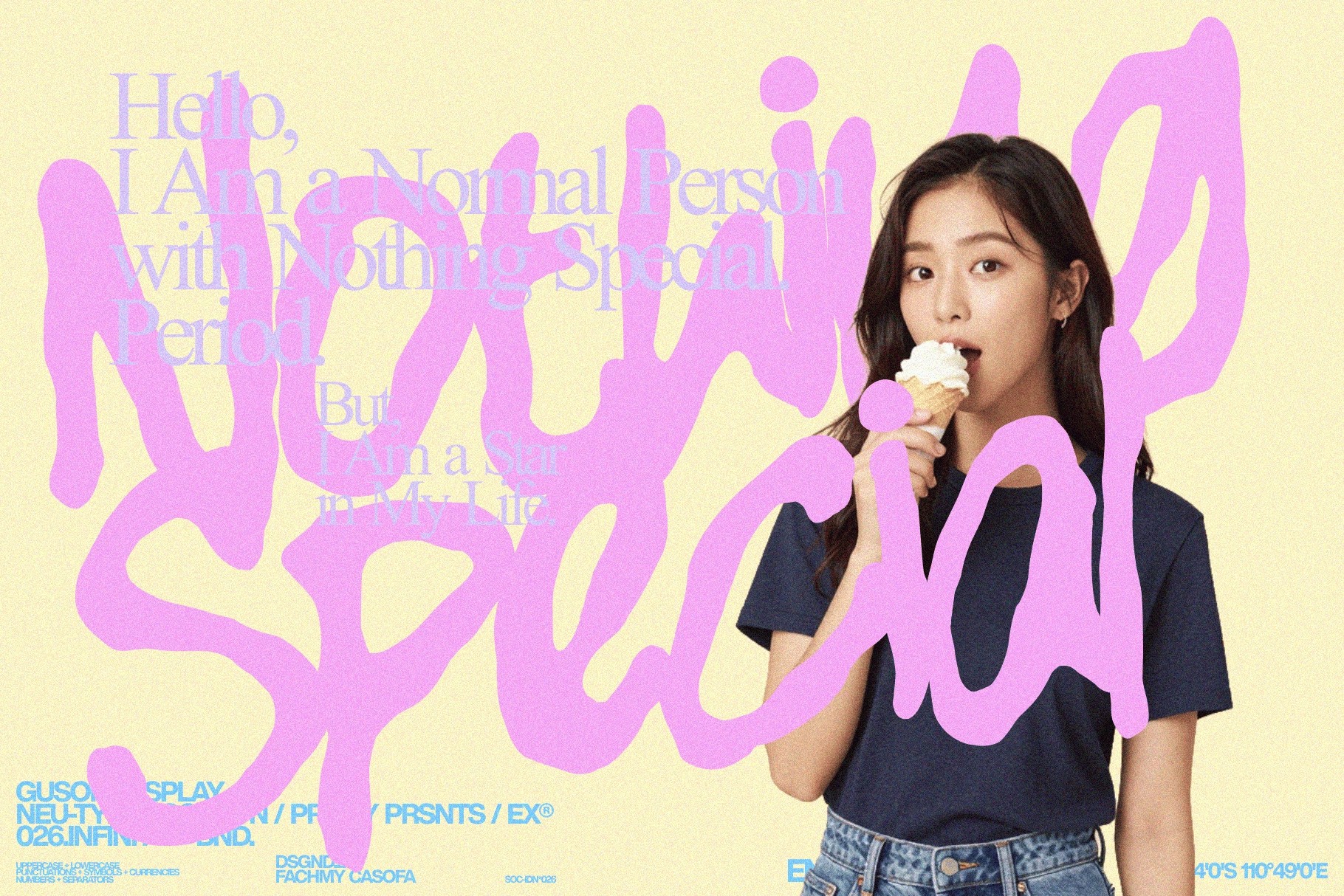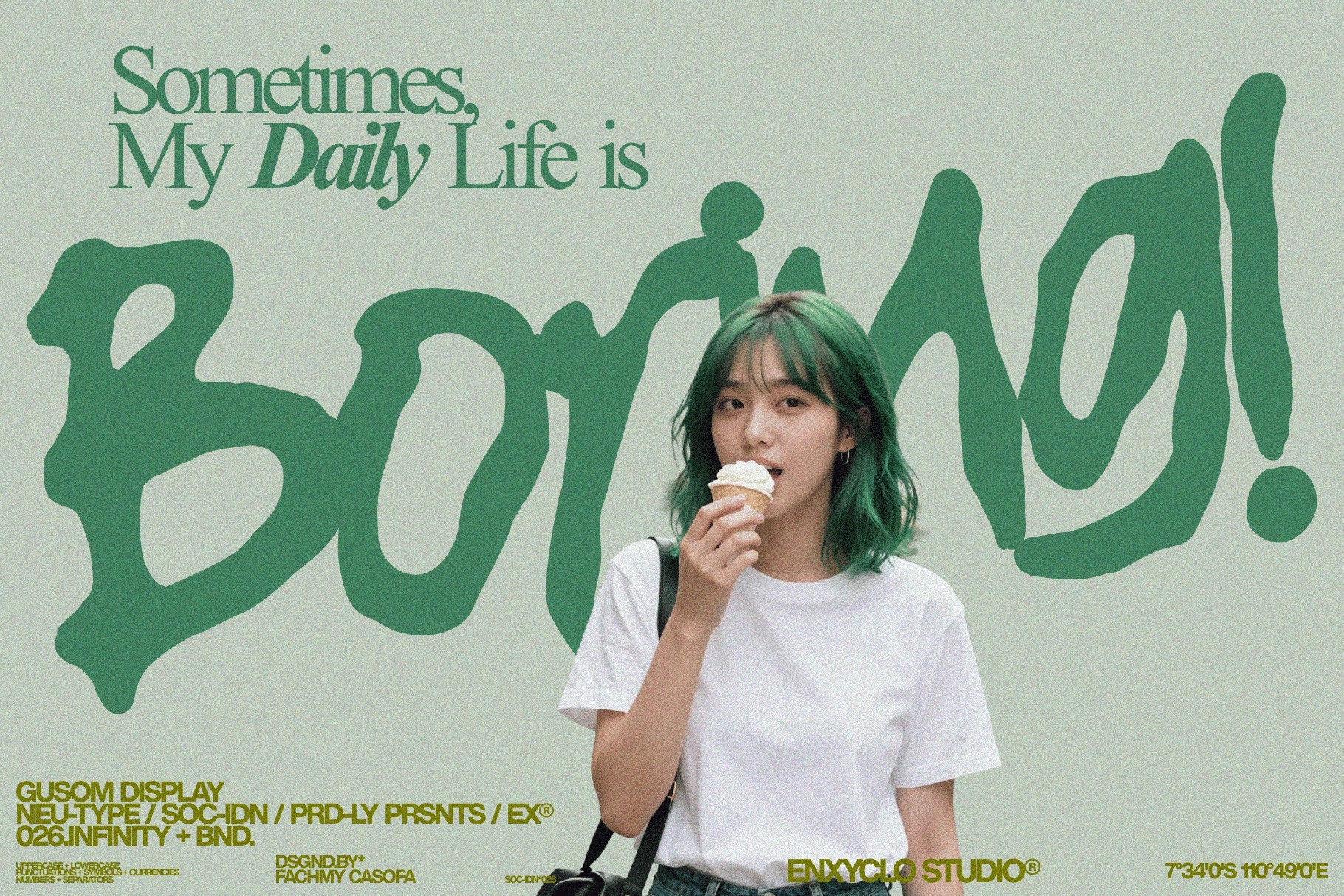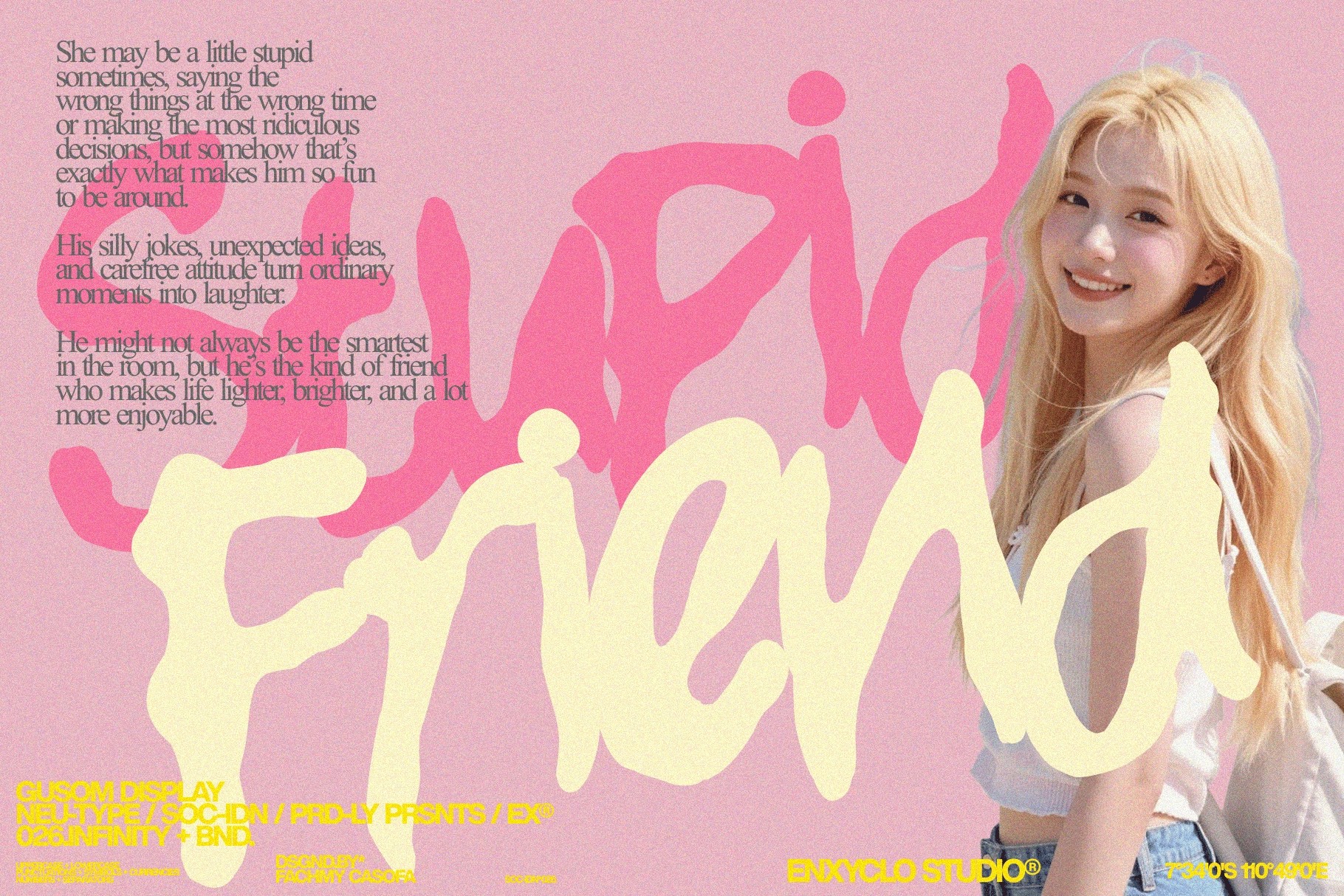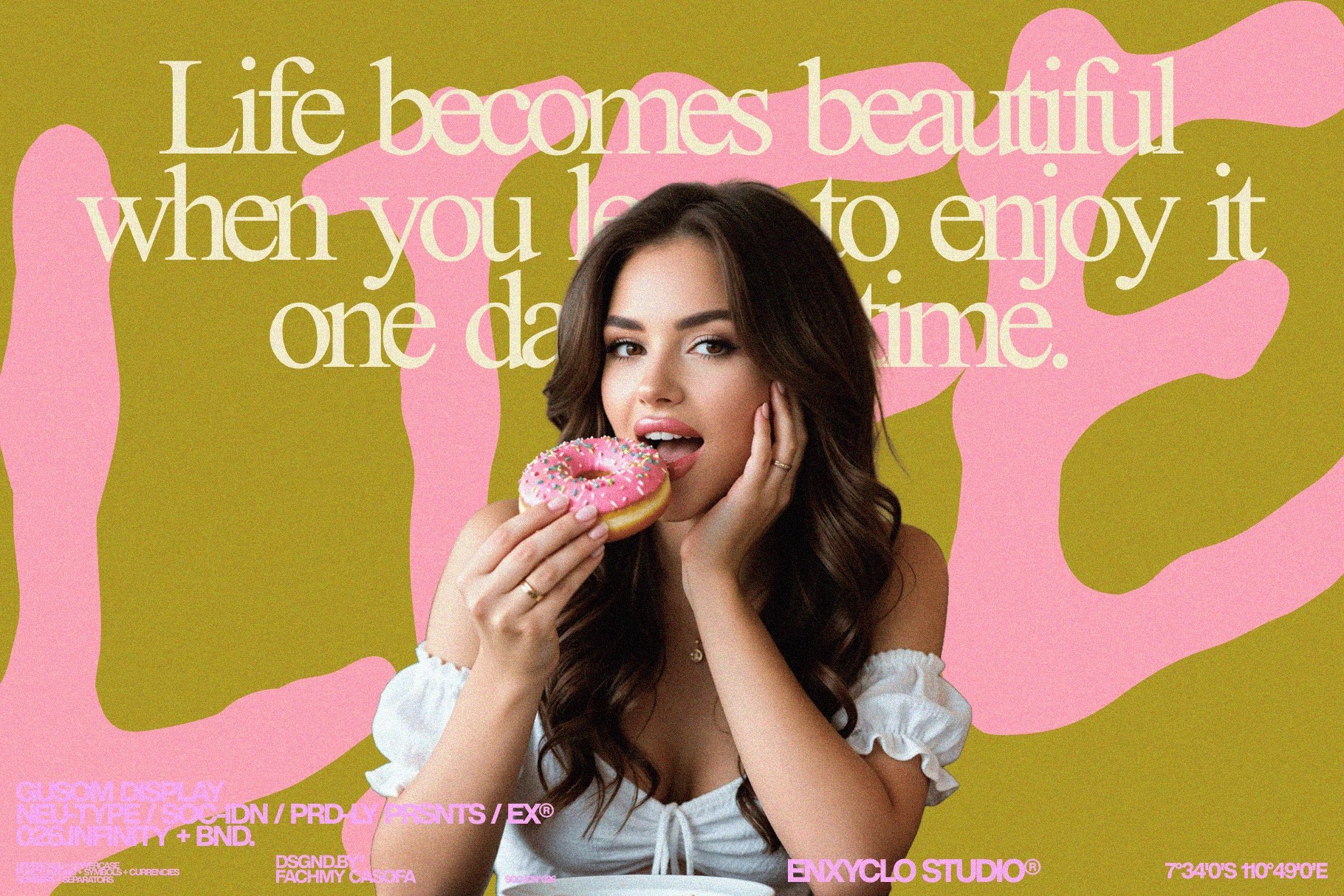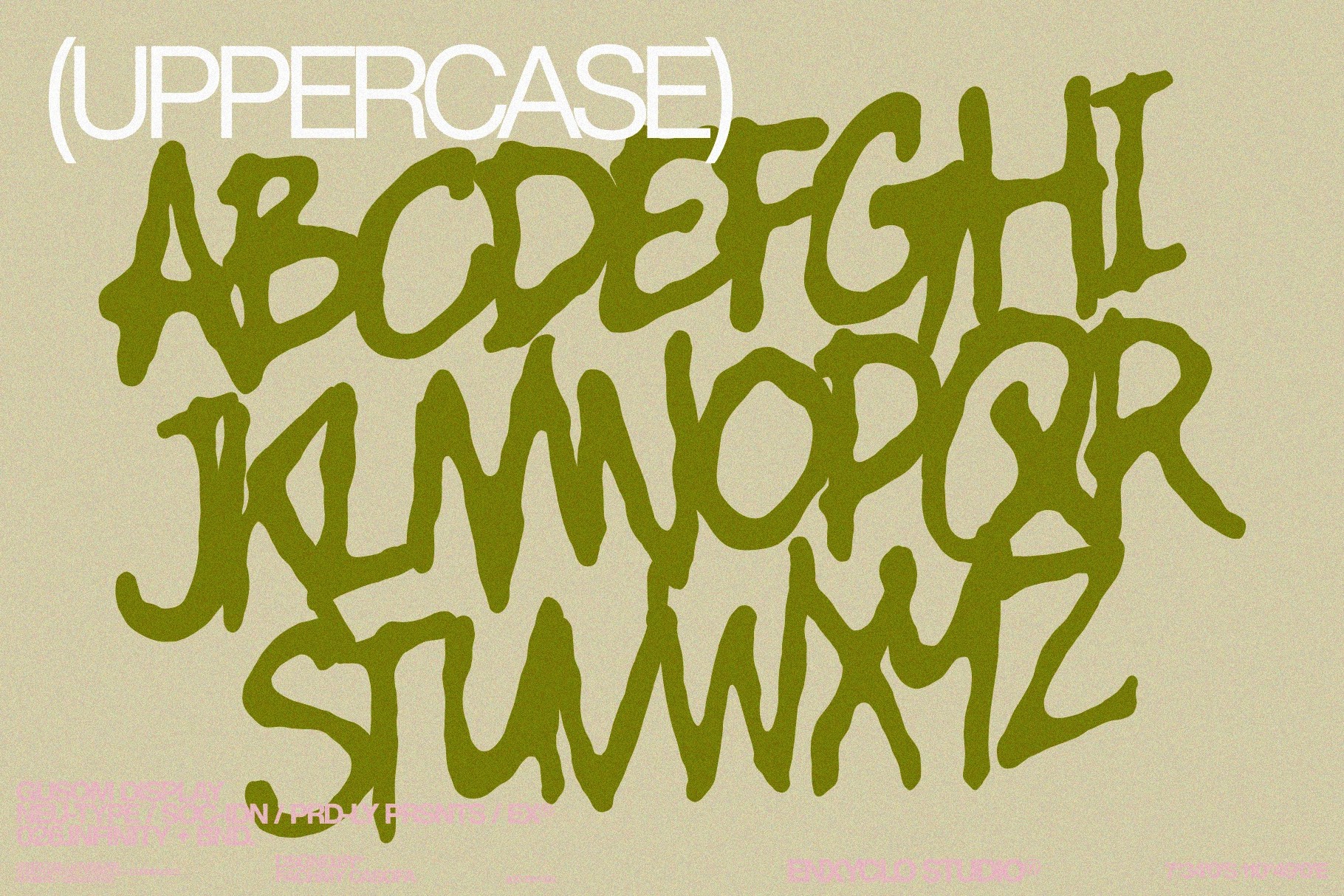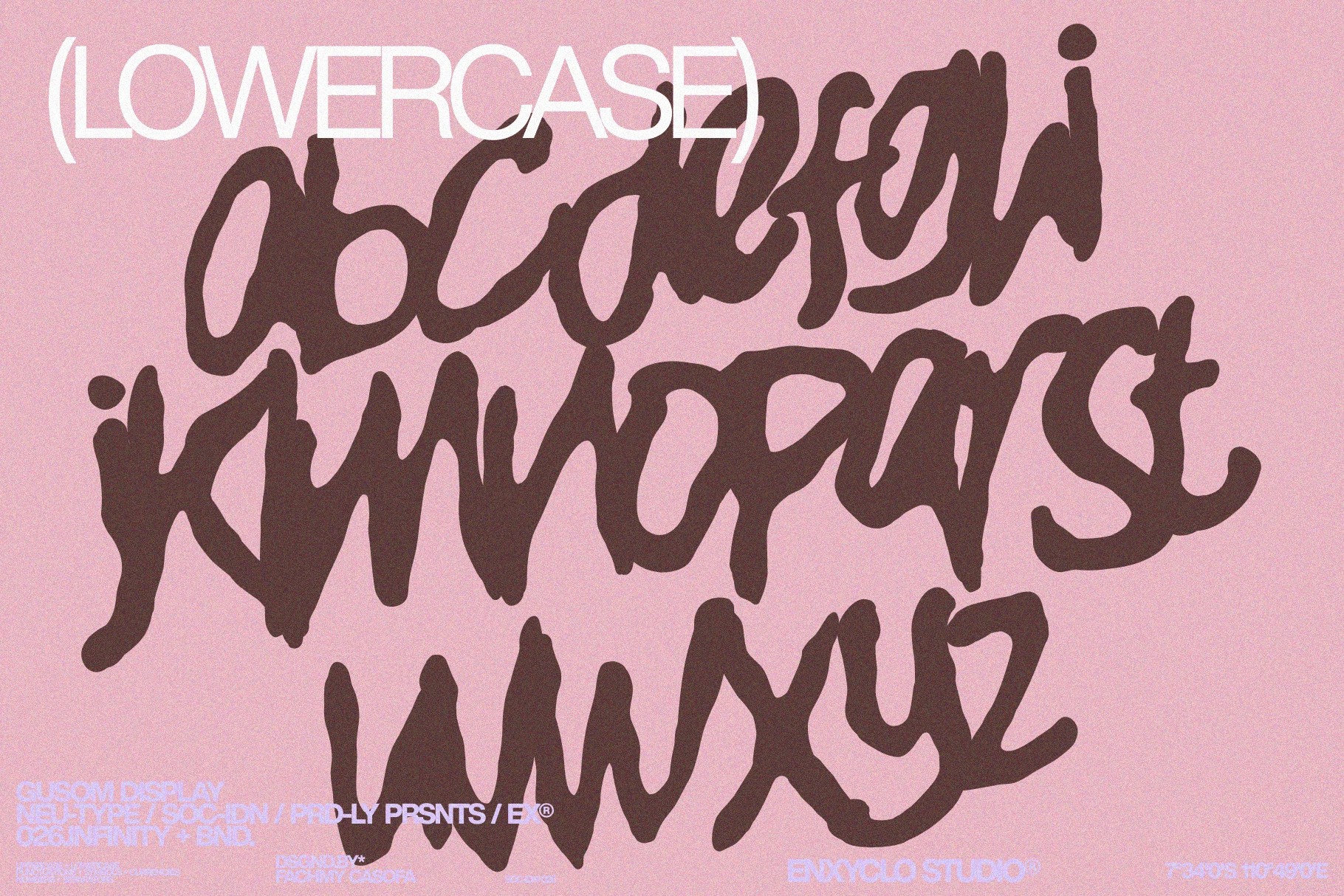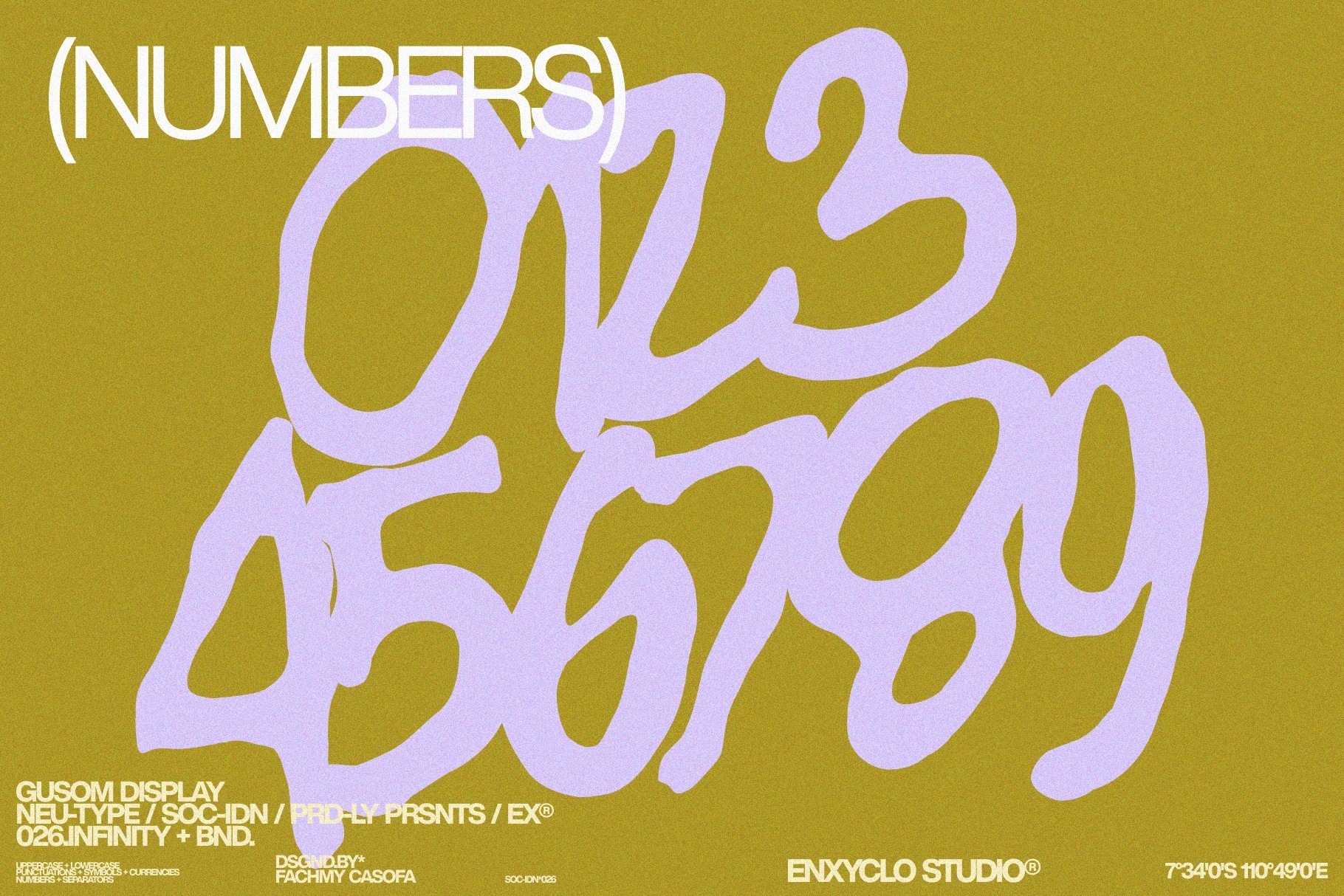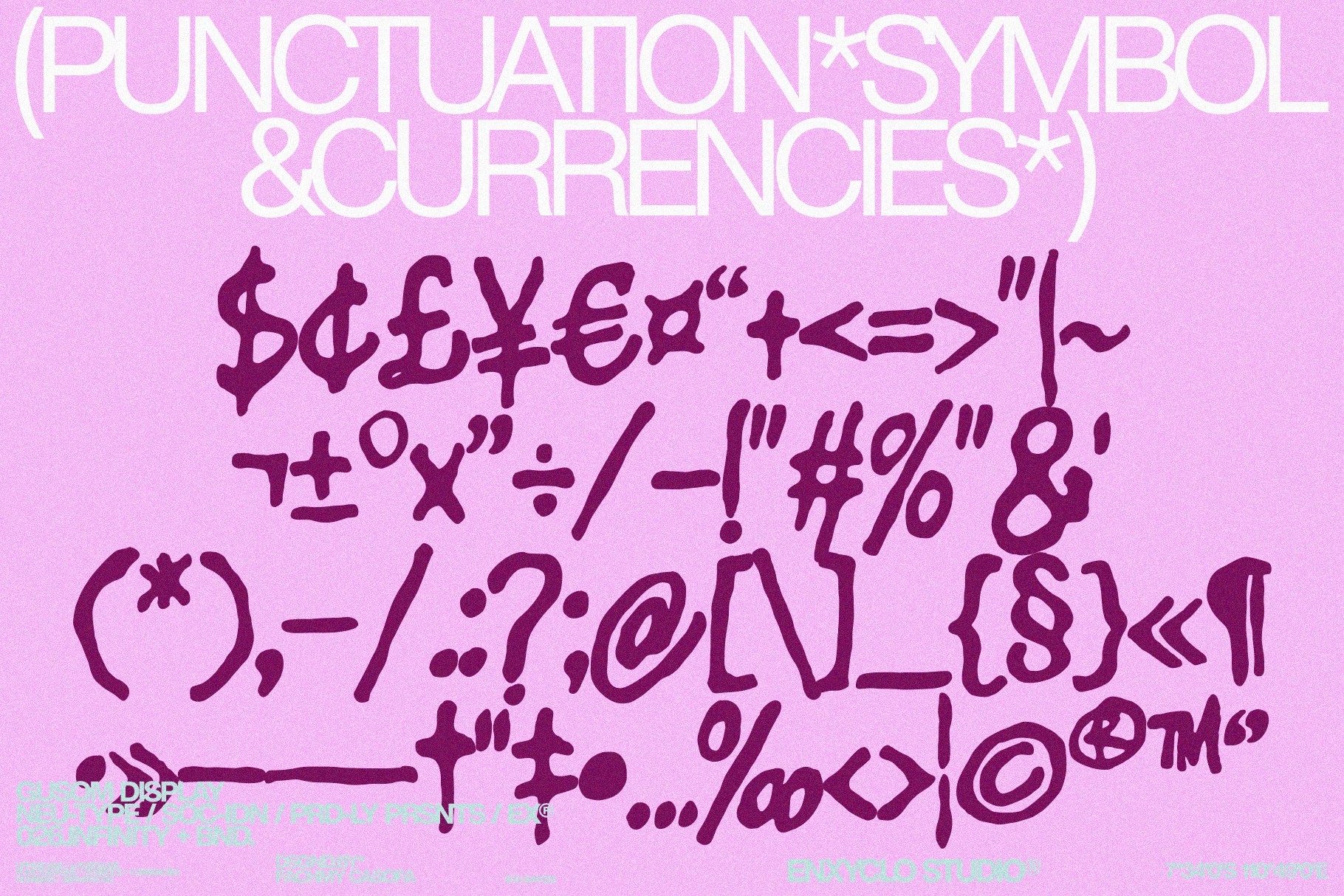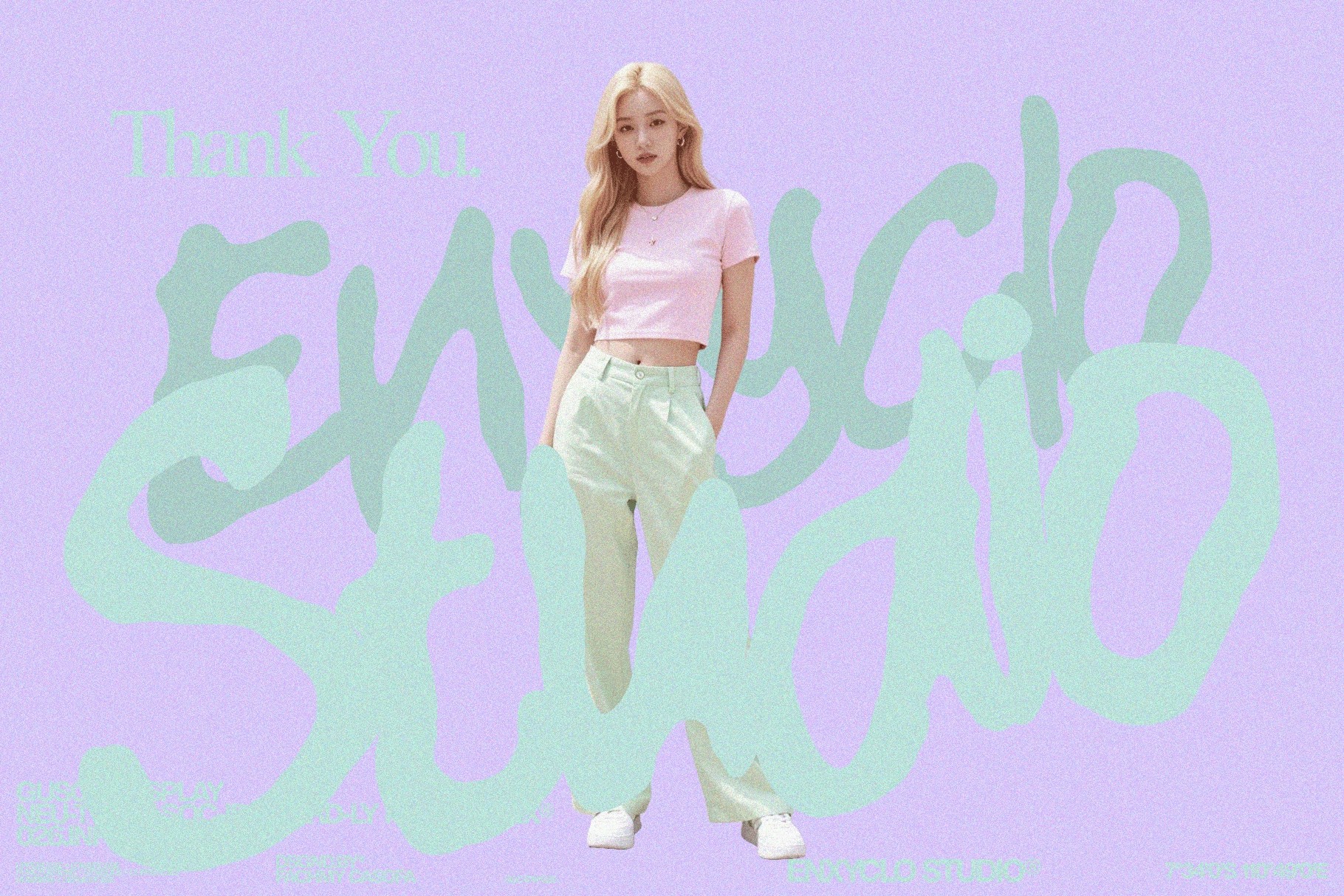
GUSOM — Gritty Poster Font
Gusom
GUSOM — Gritty Poster Font is a bold and expressive display typeface designed to bring raw urban energy into modern visuals. With its rough handdrawn strokes and imperfect forms, it captures the authentic feel of street culture, industrial textures, and fearless creative expression.
Built for impact, GUSOM features strong, dynamic letterforms that deliver intensity while maintaining solid readability. Its gritty texture and organic flow create a striking visual presence, making it an ideal choice for bold typography that feels modern, artistic, and unapologetically powerful.